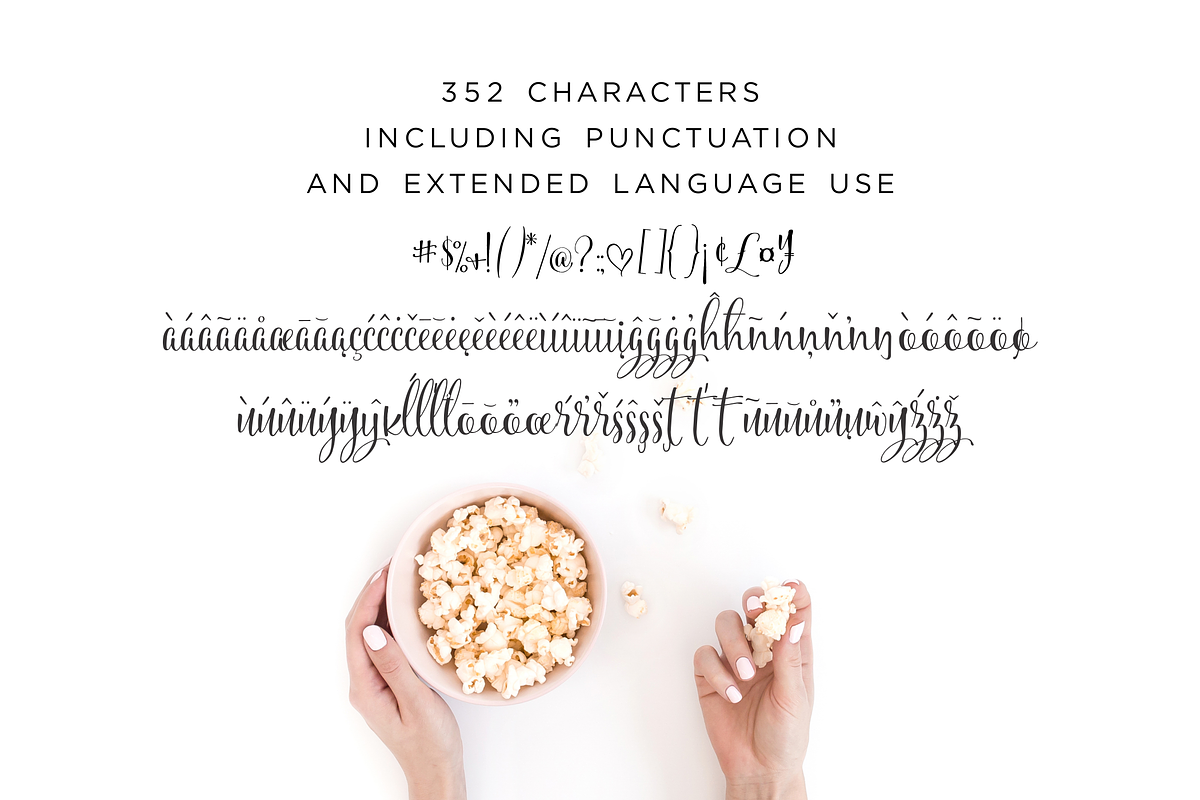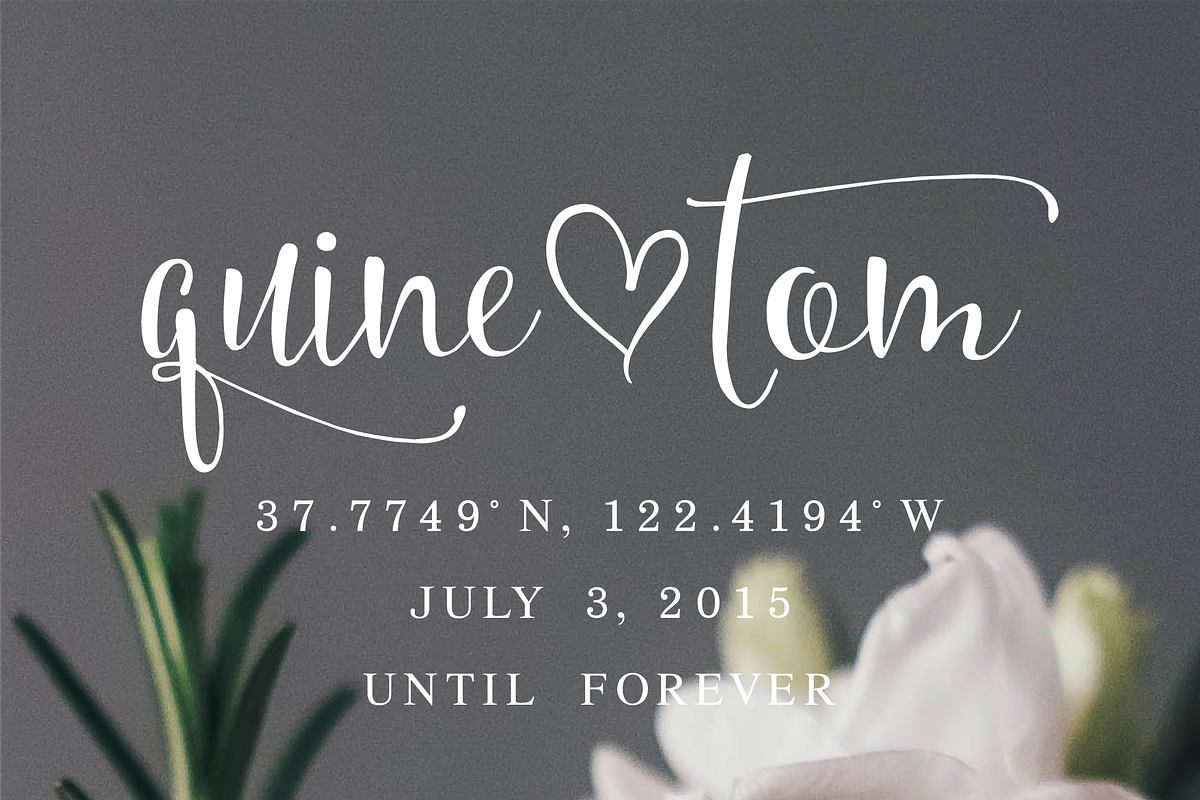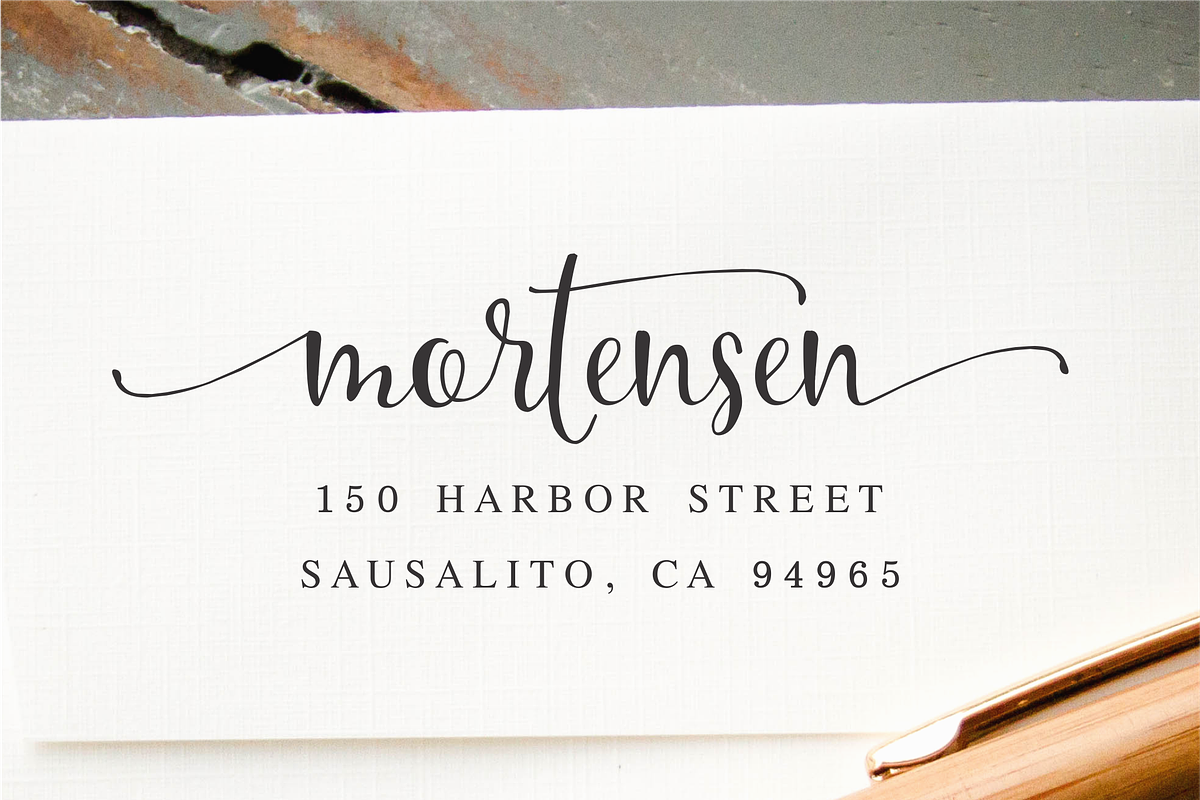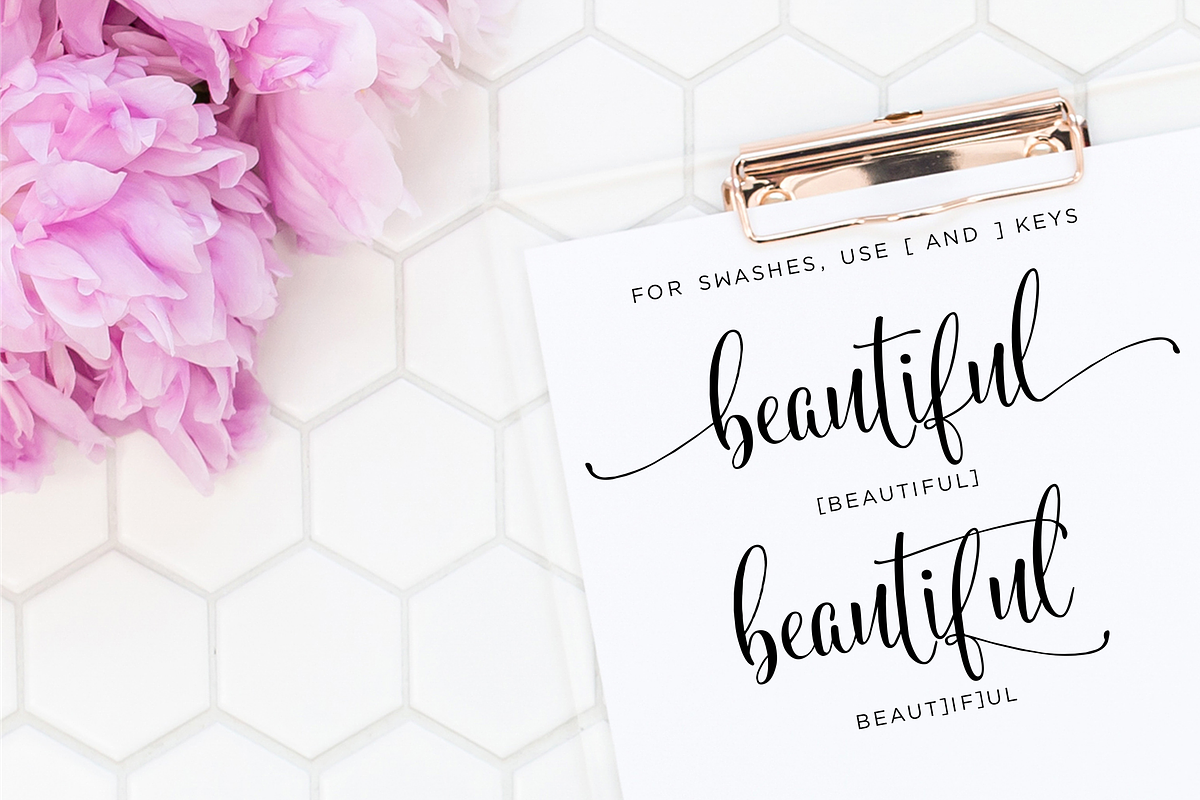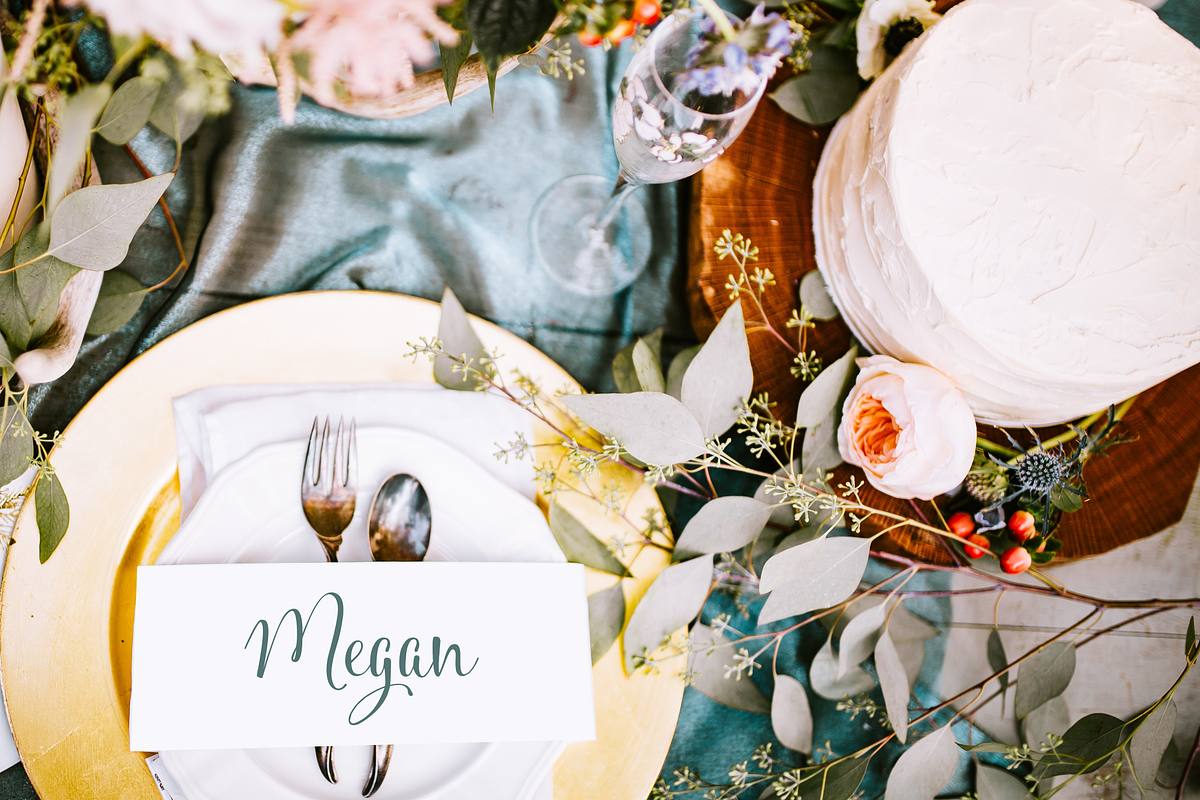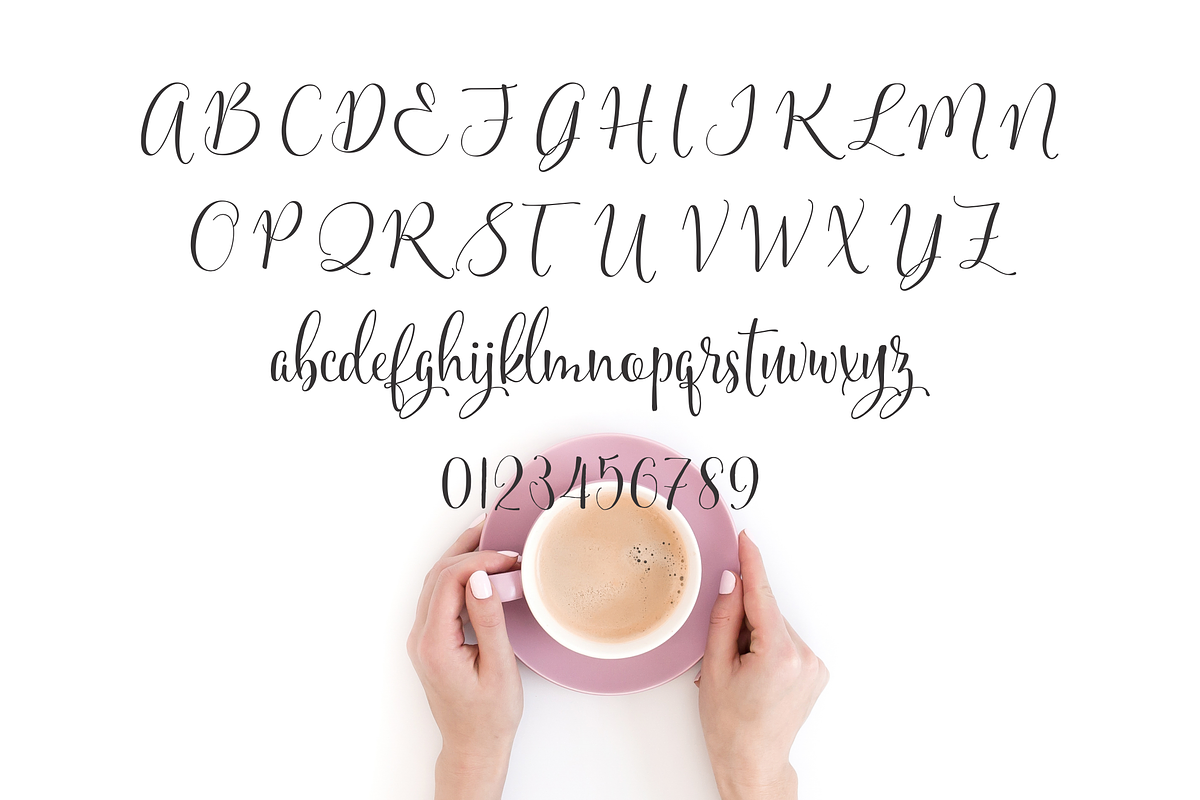
Sifted Wedding Font
Sifted is a modern calligraphy script font handlettered by Kestrel Montes. The bouncing playfulness mixed with romantic elegance make this font perfect for invitations, logos and other special projects.
• 260 characters including lots of multilingual characters and punctuation
• Pretty initial and terminal swashes for extra adornment (programmed as alternate ligature substitutions) • Installable digital font file in Open Type Layout (installable .otf and .ttf files)